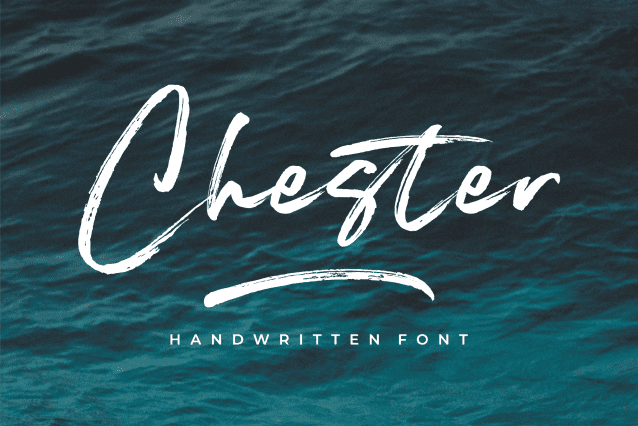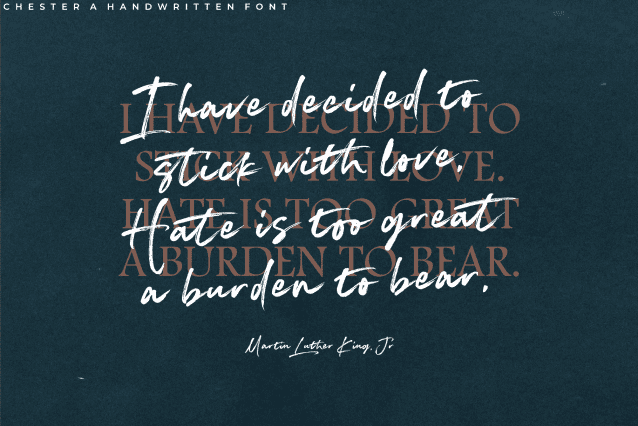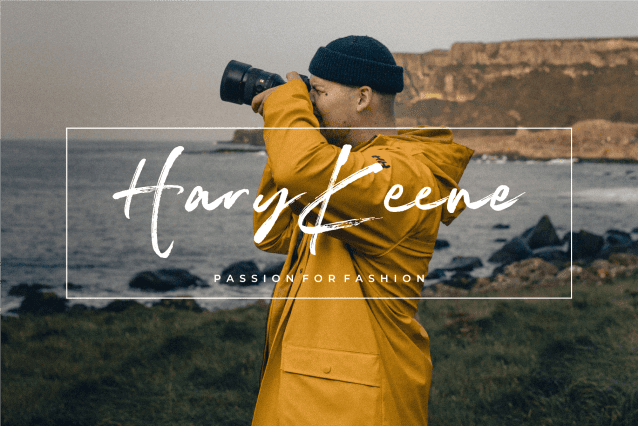
Chester Hand Brush Font
Chester Hand Brush Font – Just like a beautiful handwritten brush font, is the perfect choice for your next personal branding project or any nostalgic script design! This brush font is trendy and classic, depending on how you use it. As a wordmark or text overlay to any background image – Chester will create the perfect finish to any design.